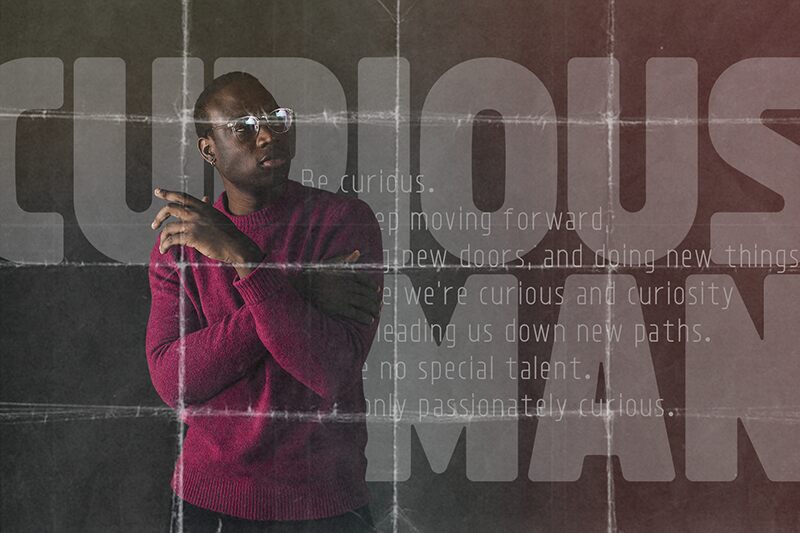
Mike Sans FREE
Mike Sans font by FactoryType is a modern condensed sans serif whose design offers clean and geometric glyphs that create versatile options for any display use. A square style is one of its most distinctive characteristics, making it look minimal and readable whenever in use.
Elevate the quality of your projects with this free font in logos, book covers, business cards, posters, brochures, packaging design, or social media graphics. Use Mike Sans everywhere for general design purposes or branding ones for restaurants or fashion brands. mavv